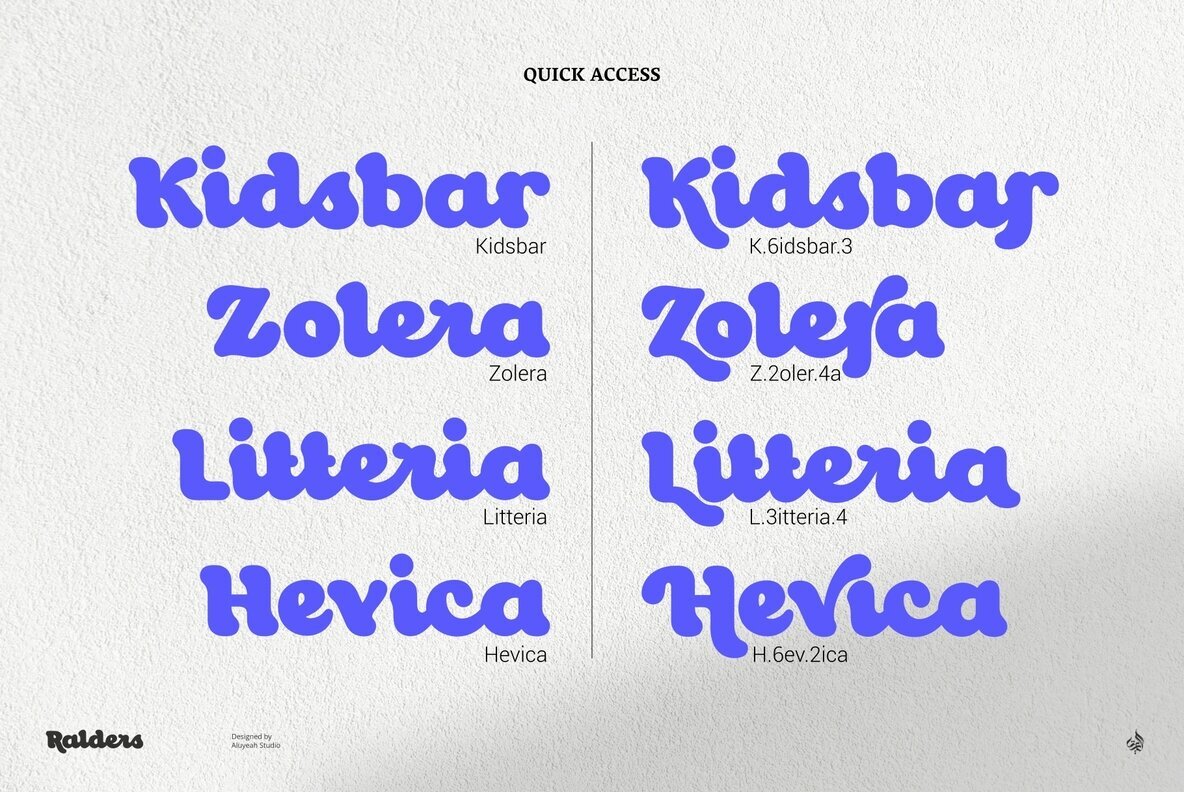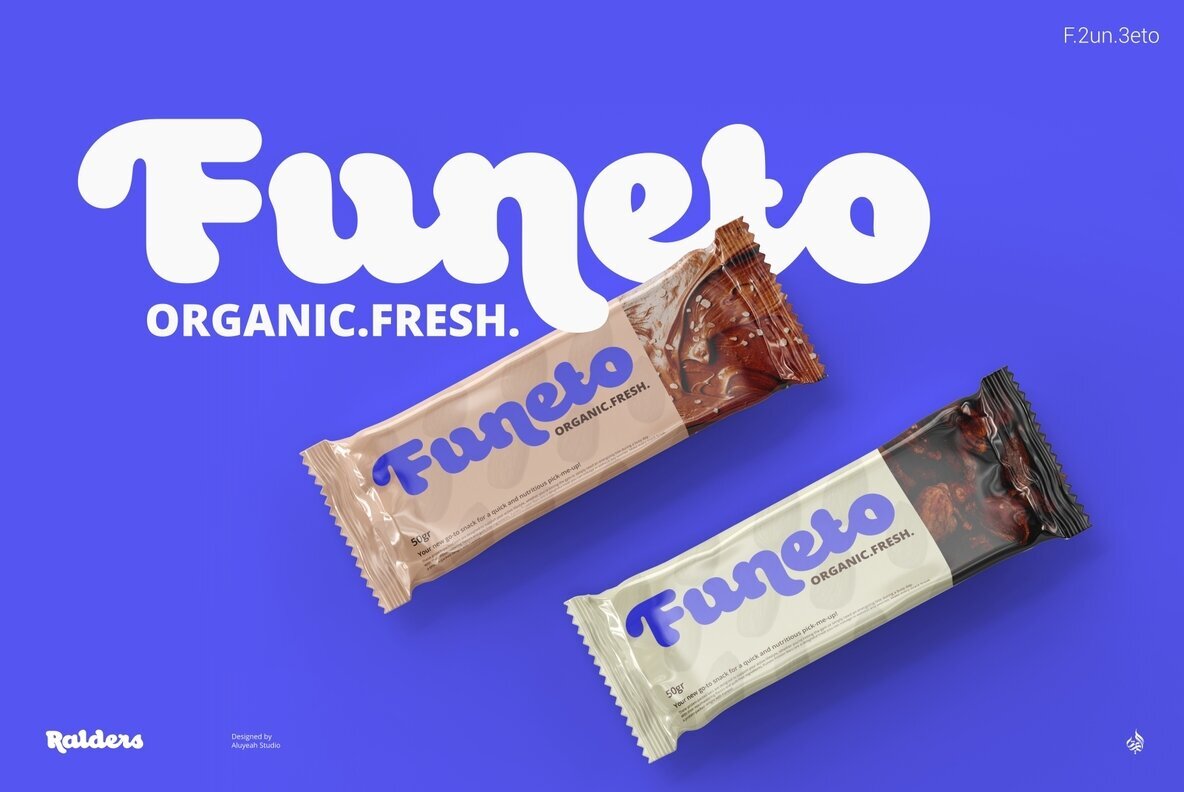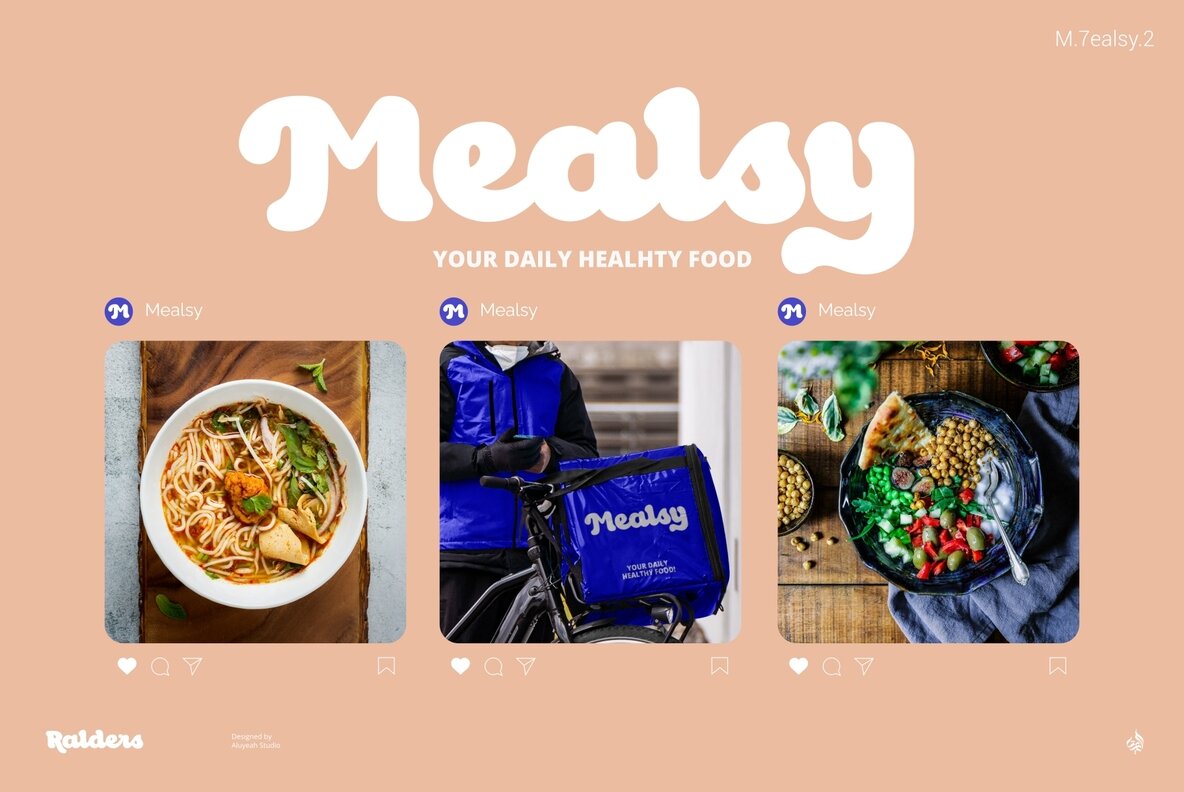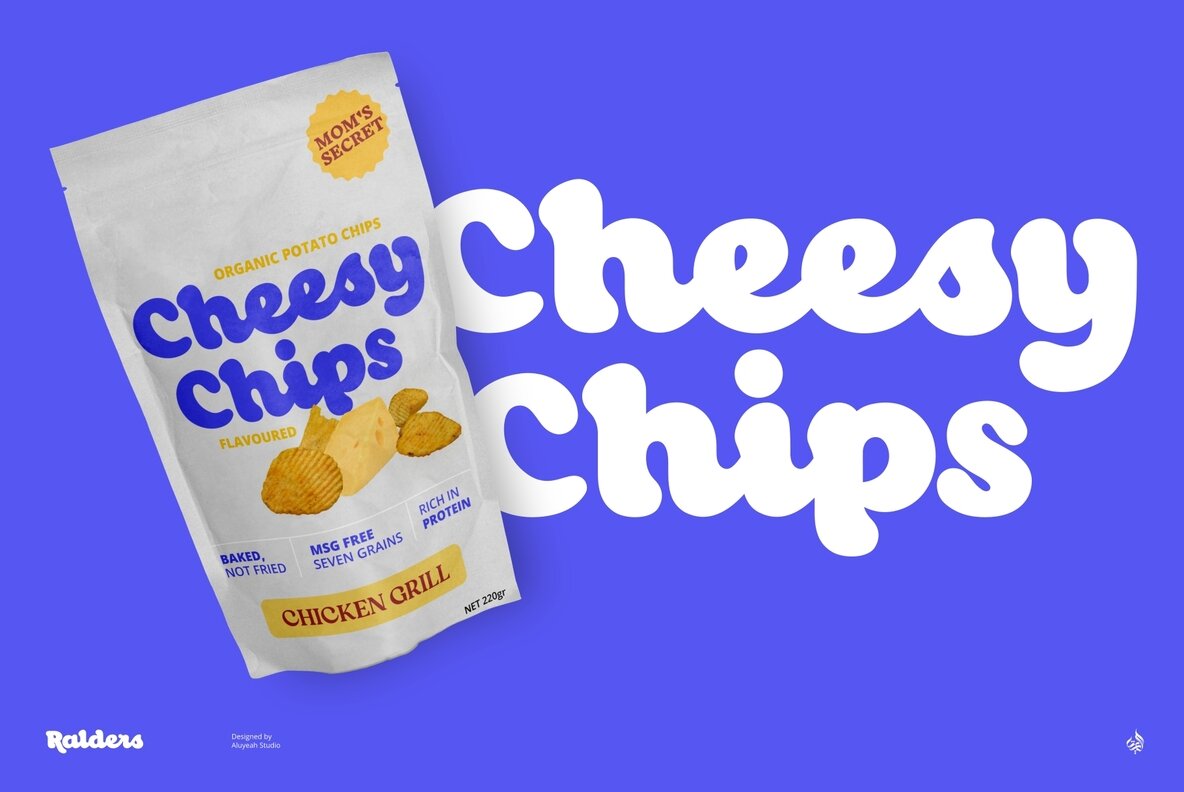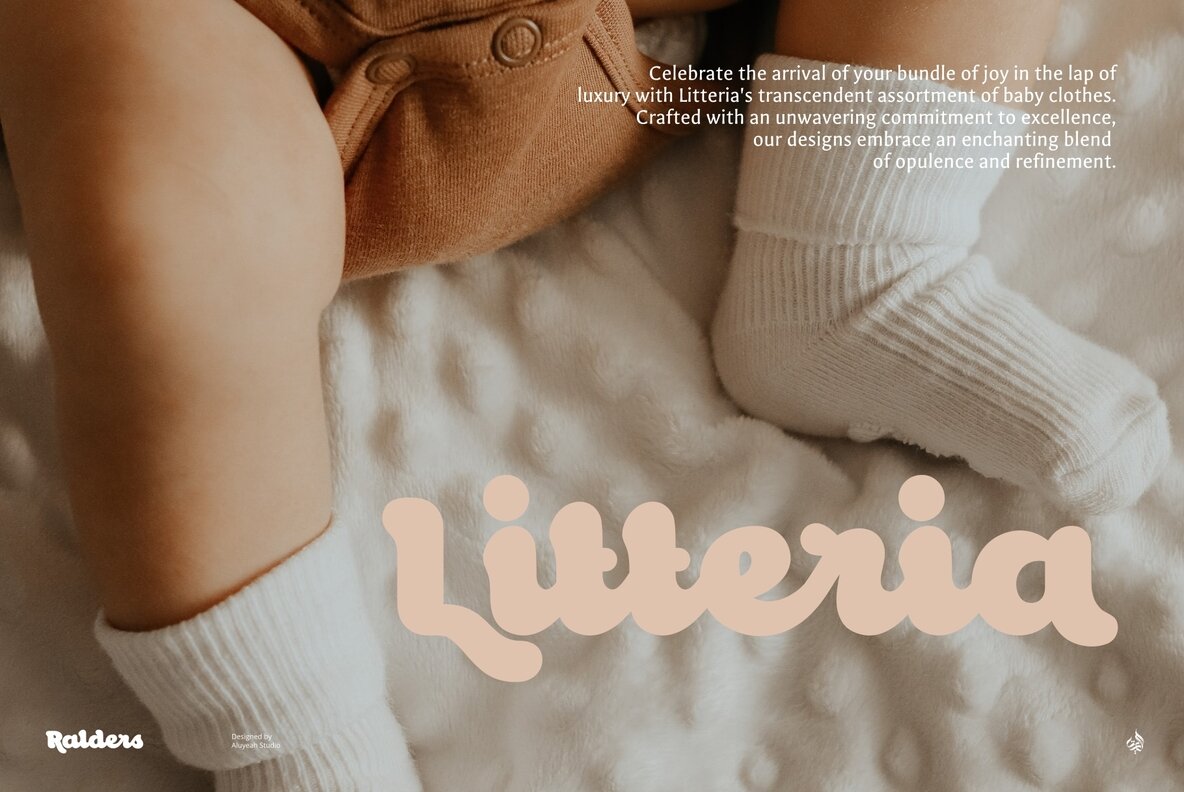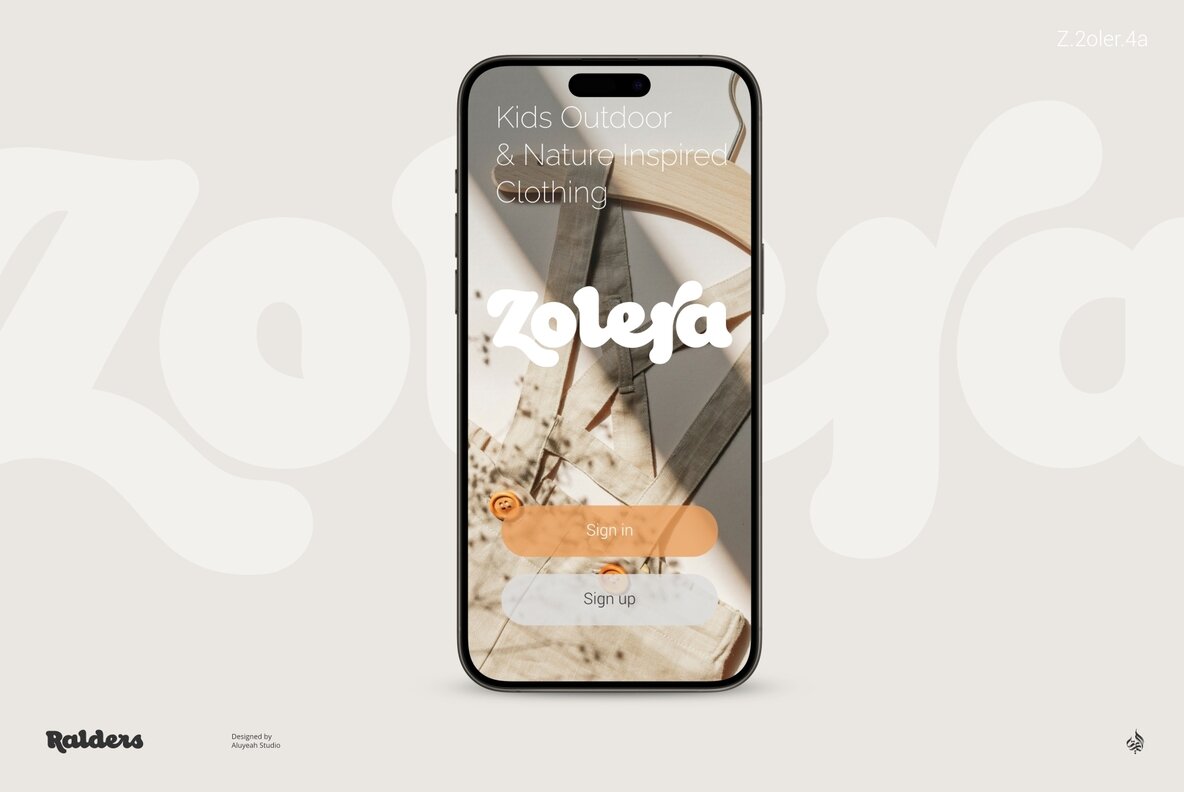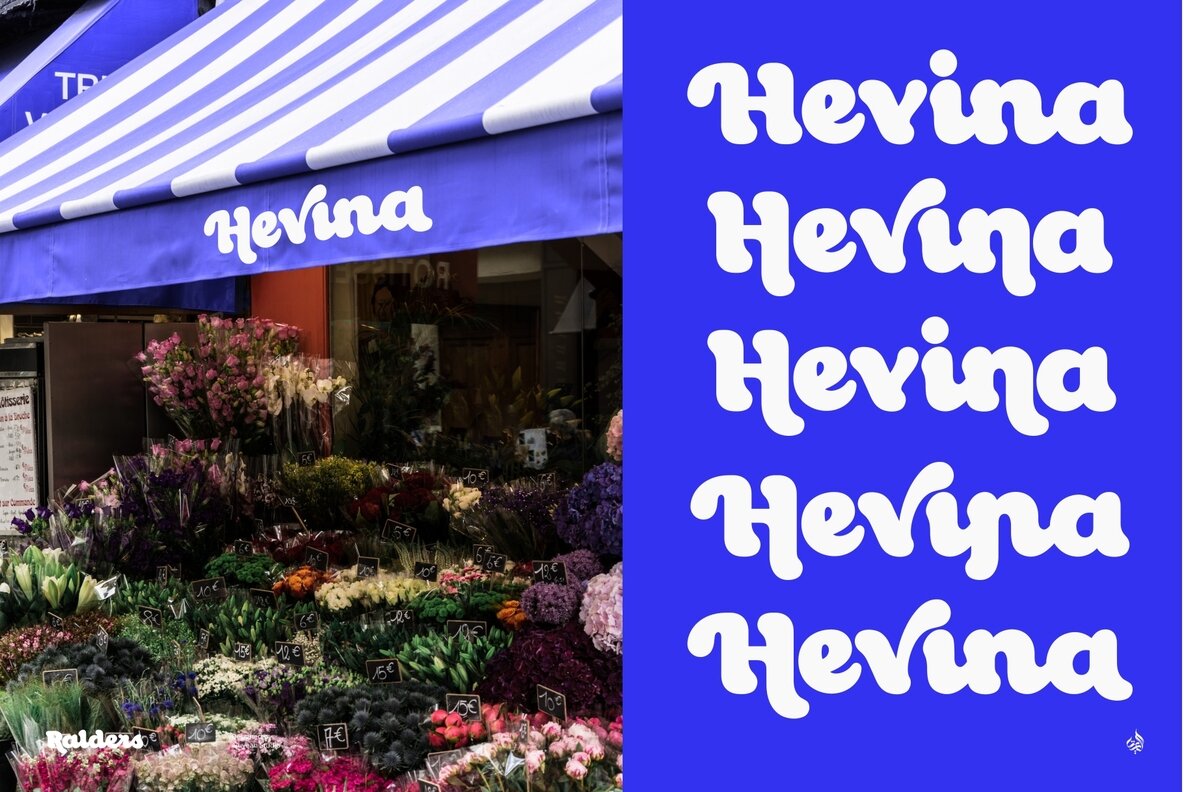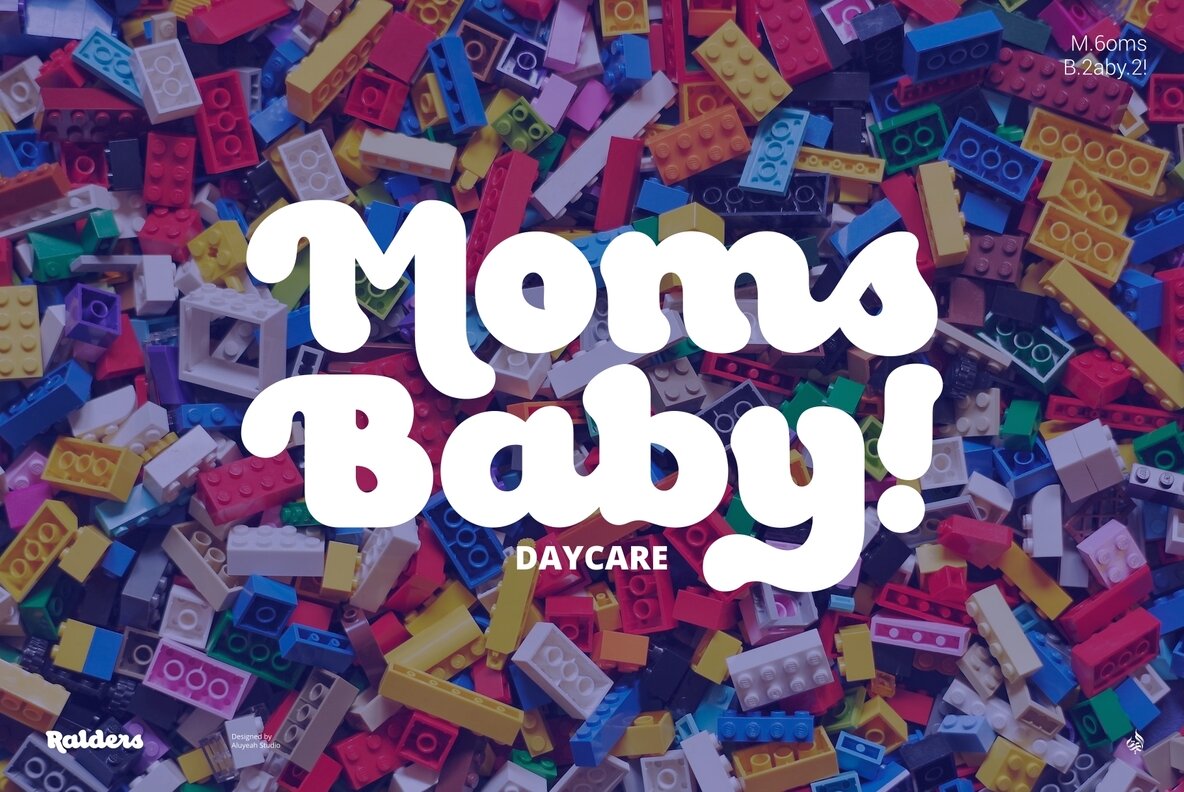
Ralders Font
Al Ralders Regular
Ralders is a bold and playful semi-cursive font designed for creatives seeking to add a unique touch to their projects. With over 320 glyphs and 100+ alternates, it offers extensive customization for your designs. This whimsical font is perfect for packaging, invitations, logo designs, and social media posts. Its eye-catching style will bring your ideas to life, making your project stand out.